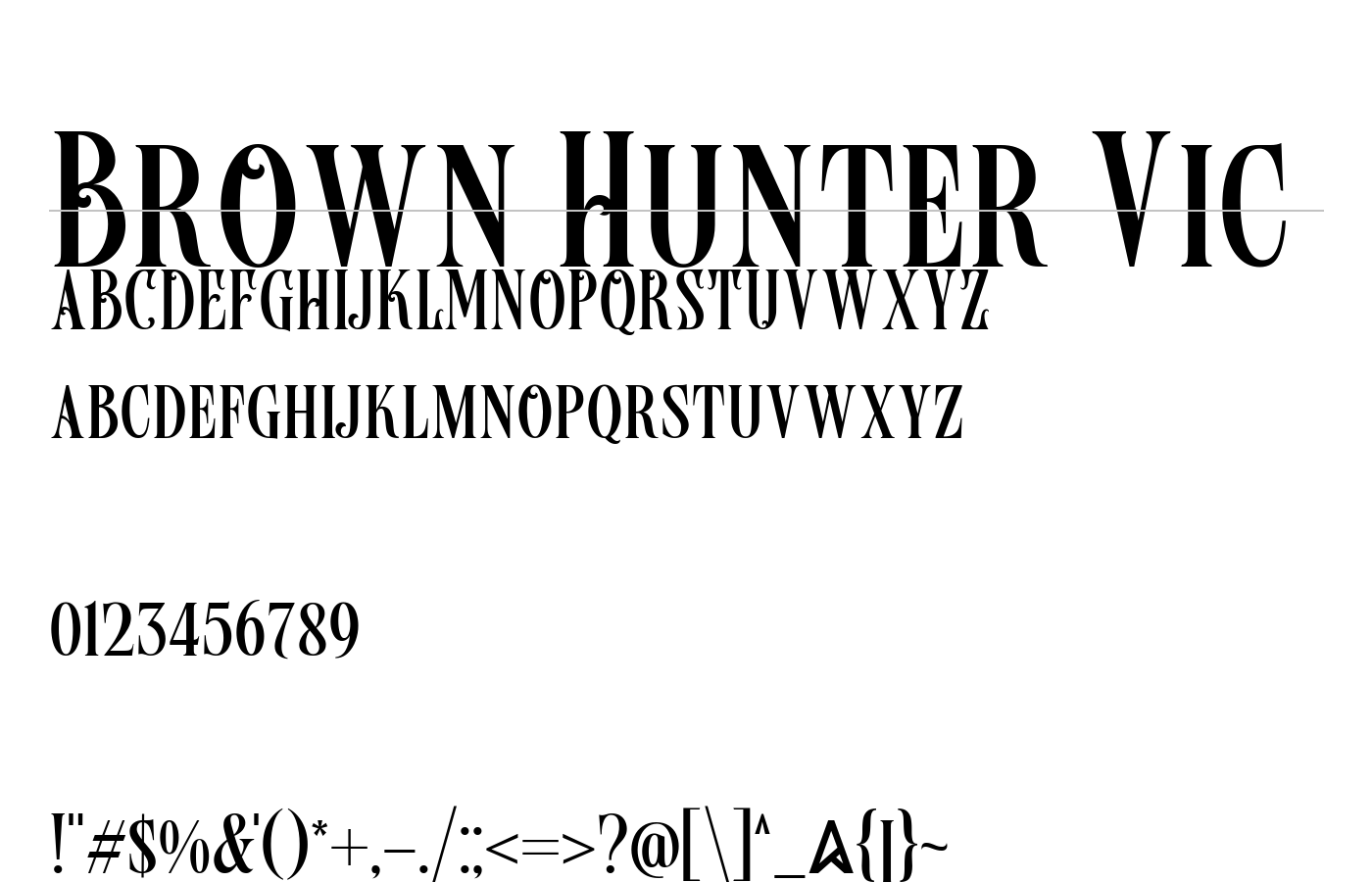
Brown Hunter Vic is a bold and narrow serif font with a distinctive vintage flair, characterized by its high contrast between thick and thin strokes and elegant, slightly curved serifs. Its tall, condensed letterforms and unique details like curled terminals and sharp edges give it a refined, dramatic personality, making it ideal for luxury branding, headlines, and editorial design where a strong yet sophisticated impression is desired. This font works best in large sizes to highlight its ornate style and timeless charm.
Brown Hunter Vic Font
About Brown Hunter Vic Font
| Font family | Brown Hunter Vic Font |
| Designer | Alit Suarnegara |